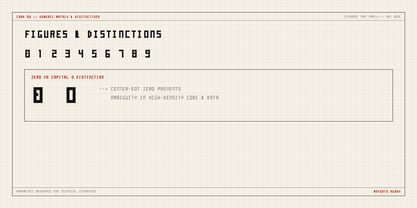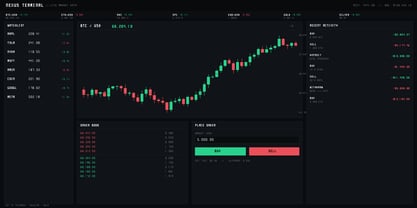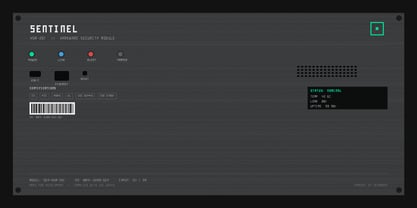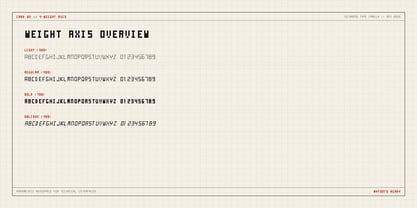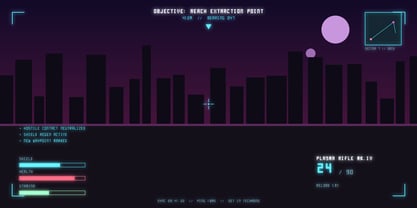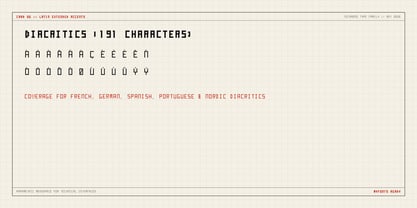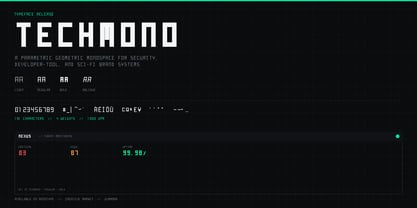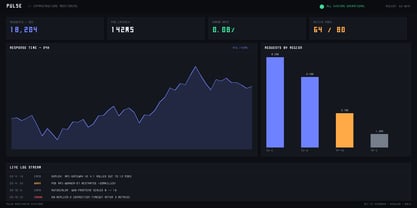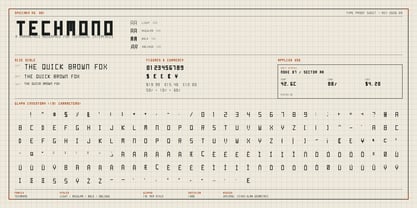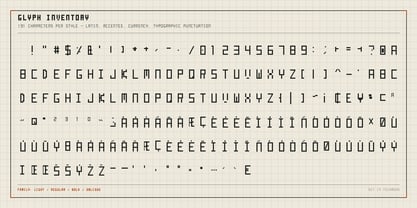
Techmono
La famille de polices Techmono a été conçue par Augustine Adu et publiée par Maverick26Designs. Techmono contient 4 styles et options de package familial. En savoir plus sur cette famille
TechMono — Parametric Unicase Monospace Typeface
​Engineered for precision, high-density interfaces, and technical aesthetics, TechMono is a fixed-slab parametric monospace typeface built for modern digital environments. Drawing inspiration from HUD readouts, code editors, and architectural schematics, TechMono bridges the gap between raw industrial utility and clean geometric design.
​Constructed on a strict 1000 UEM parametric grid, every character in TechMono maintains exact fixed-width proportions for effortless baseline alignment across code blocks, data tables, and complex UI layouts. Special attention has been paid to critical functional details—such as a distinctive slashed/center-dot zero to eliminate ambiguity against capital O in dense code strings, and center-line aligned math operators.
​Whether deployed for developer tooling, sci-fi gaming UIs, financial telemetry feeds, or high-impact editorial headlines, TechMono delivers uncompromised clarity and high-contrast visual weight.